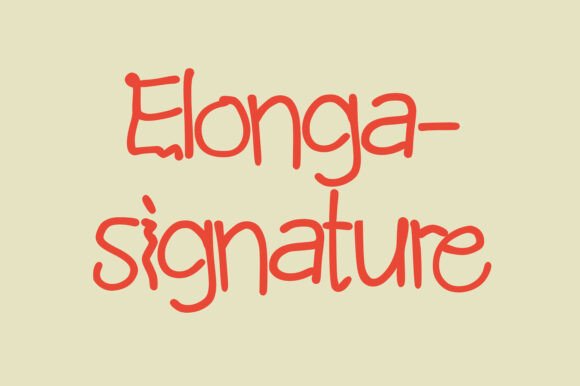
Elonga Signature Font: Adding a Touch of Whimsy to Your Creative Projects
In the world of typography, fonts play a crucial role in conveying the tone and personality of a brand or creative project. When it comes to adding a touch of whimsy and playfulness, the Elonga Signature Font is an excellent choice. This hand-drawn font features elongated, rounded letterforms that exude a casual and friendly aesthetic, making it perfect for creative projects that require a fun and approachable feel.
What is Elonga Signature Font?
Elonga Signature Font is a unique and charming typeface that boasts a playful, hand-drawn style. Its distinctive elongated and rounded letterforms give it a personalized, handwritten vibe that is sure to capture the attention of your audience. The font’s casual and friendly aesthetic makes it an excellent choice for a wide range of creative projects, from greeting cards and posters to logos and branding materials.
Key Features of Elonga Signature Font
- Playful, hand-drawn style: Elonga Signature Font features a unique, hand-drawn style that gives it a personalized and approachable feel.
- Elongated, rounded letterforms: The font’s elongated and rounded letterforms add a touch of whimsy and playfulness to any creative project.
- Casual and friendly aesthetic: The font’s casual and friendly aesthetic makes it perfect for creative projects that require a fun and approachable feel.
- Unique, slightly irregular strokes: The font’s unique, slightly irregular strokes give it a handwritten vibe while maintaining legibility.
Uses of Elonga Signature Font
Elonga Signature Font is a versatile typeface that can be used in a wide range of creative projects, including:
- Greeting cards: Add a touch of whimsy and playfulness to your greeting cards with Elonga Signature Font.
- Posters: Use the font to create eye-catching posters that require a fun and approachable feel.
- Logos: Elonga Signature Font is perfect for logos that require a unique and memorable brand identity.
- Branding materials: Use the font to create a consistent brand identity across all your marketing materials.
Benefits of Using Elonga Signature Font
There are several benefits to using Elonga Signature Font in your creative projects, including:
- Unique and memorable: The font’s unique and playful style makes it sure to capture the attention of your audience.
- Versatile: Elonga Signature Font can be used in a wide range of creative projects, from greeting cards to logos.
- Easy to read: Despite its playful style, the font remains easy to read and understand.
- Customizable: The font’s hand-drawn style makes it easy to customize and modify to suit your specific needs.
Tips for Using Elonga Signature Font
Here are some tips for using Elonga Signature Font in your creative projects:
- Use it sparingly: While the font is playful and fun, it can be overwhelming if used excessively. Use it sparingly to add a touch of whimsy to your design.
- Pair it with other fonts: Elonga Signature Font pairs well with other fonts, such as sans-serif fonts. Experiment with different font combinations to find the perfect look for your project.
- Adjust the size and color: Experiment with different sizes and colors to find the perfect look for your project.
Elonga Signature Font is a unique and charming typeface that adds a touch of whimsy and playfulness to any creative project. Its playful, hand-drawn style and elongated, rounded letterforms make it perfect for creative projects that require a fun and approachable feel. With its versatility, ease of use, and customizable nature, Elonga Signature Font is an excellent choice for designers and creatives looking to add a personal touch to their work.
- What is Elonga Signature Font? Elonga Signature Font is a hand-drawn font featuring elongated, rounded letterforms.
- What is Elonga Signature Font used for? Elonga Signature Font is perfect for creative projects that require a fun and approachable feel, such as greeting cards, posters, logos, and branding materials.
- Is Elonga Signature Font easy to read? Yes, despite its playful style, Elonga Signature Font remains easy to read and understand.